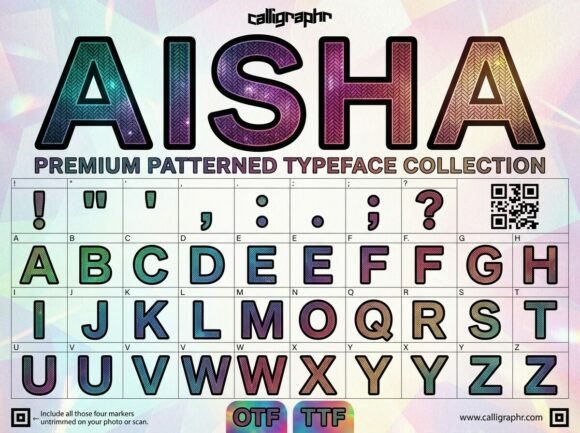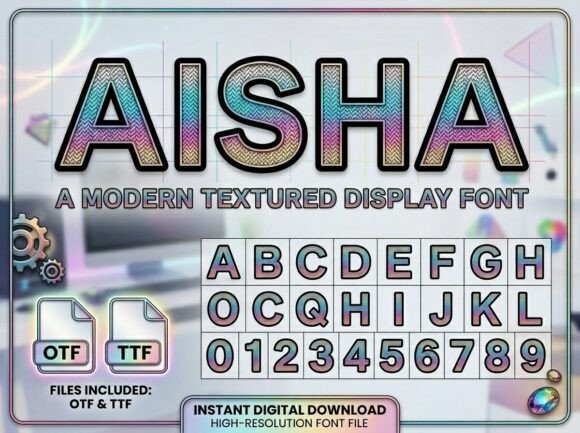
Unlocking the Vibrant World of Aisha Font
A First Impression of Aisha
Step into a world of texture and vibrant color with Aisha, a bold sans-serif font designed to make your headlines pop. Each character in this collection is meticulously filled with a sophisticated herringbone weave pattern, set against a stunning cosmic gradient of purples, teals, and golds. Aisha is the ultimate choice for high-energy branding, experimental poster design, digital art, and futuristic merchandise. Its distinct tactile feel and iridescent aesthetic ensure that your text doesn’t just sit on the page—it vibrates with life and modern luxury.
An Honest Review of Aisha
- ✨ Vibrant Colors: The cosmic gradient effect gives Aisha an unparalleled level of visual appeal.
- ✅ Versatility: Perfect for a wide range of projects, from digital art to print materials.
- ✅ Unique Texture: The herringbone weave pattern adds a tactile feel to your designs.
- ✅ Ease of Use: Despite its complex appearance, Aisha is surprisingly easy to work with.
- ⚠️ Legibility at Small Sizes: Aisha’s intricate design can make it less legible at very small font sizes.
- ⚠️ Limited Serif Options: As a sans-serif font, Aisha might not be the best fit for projects requiring a traditional serif look.
The Backstory of Aisha
Aisha was inspired by the cosmos and the intricate patterns found in nature. The designer aimed to create a font that embodies modern luxury and energy, perfect for brands and designers looking to make a statement. The herringbone pattern and cosmic gradient were chosen to evoke a sense of movement and vibrancy.
| What type of projects is Aisha best suited for? | Aisha is ideal for high-energy branding, experimental poster design, digital art, and futuristic merchandise. |
| Is Aisha available in different weights or styles? | Currently, Aisha is available as a single font with a unique textured and gradient effect. |